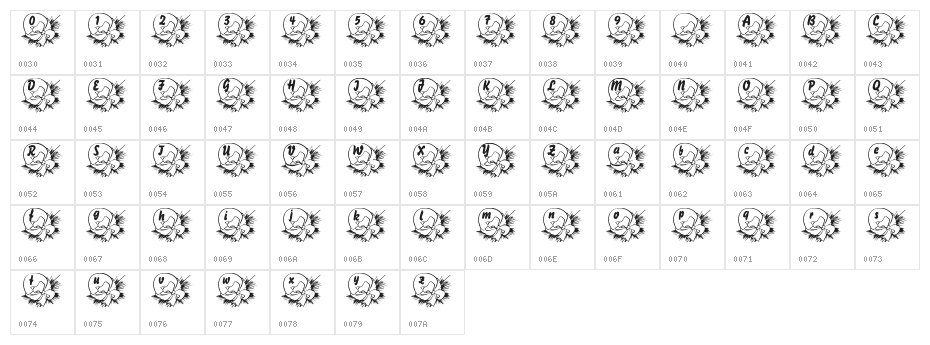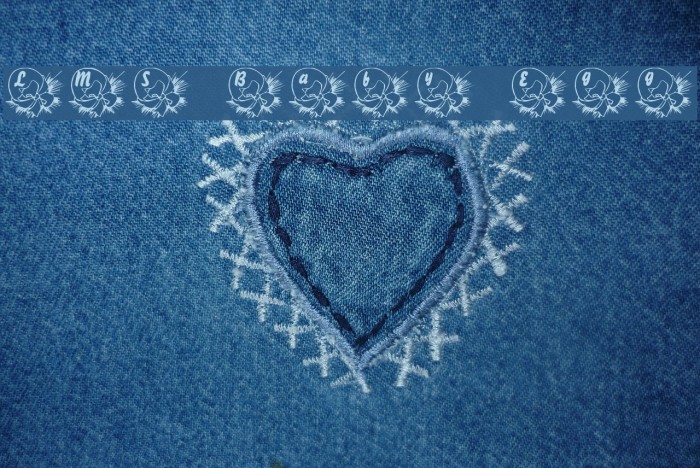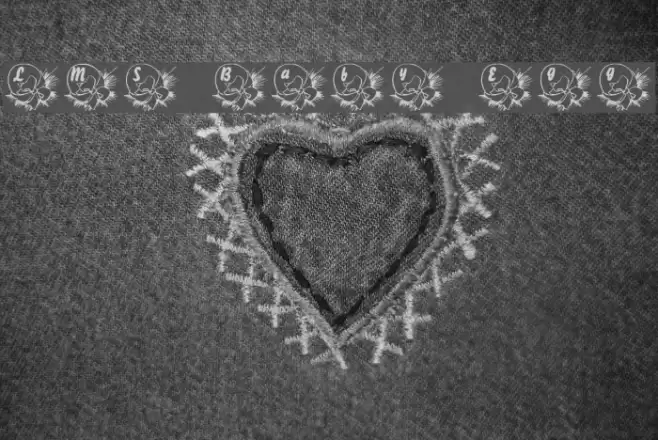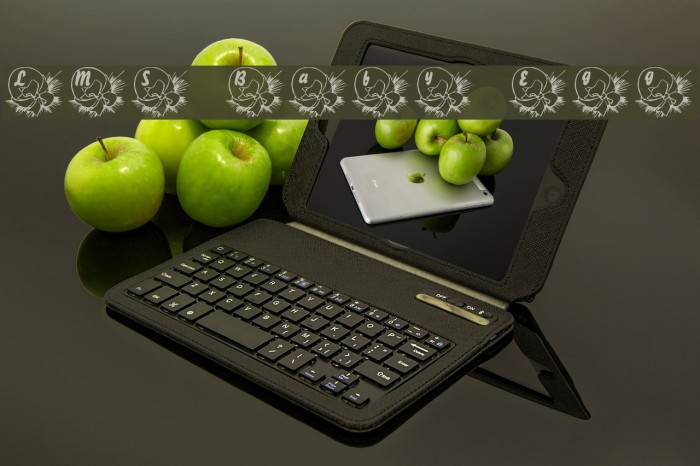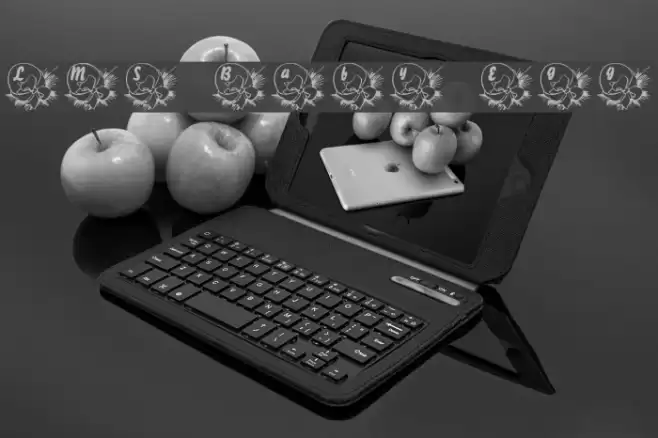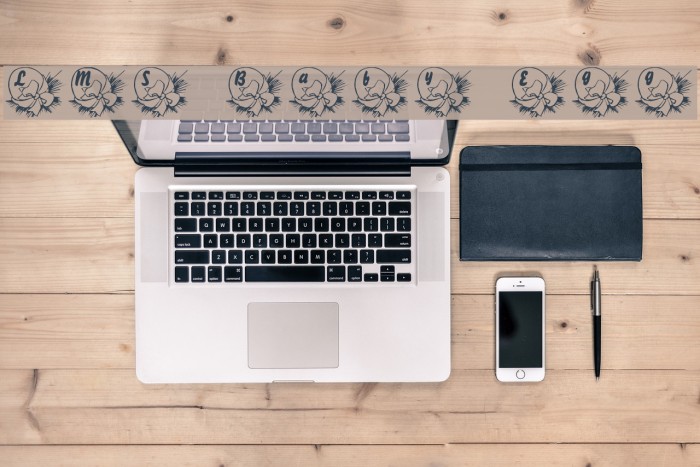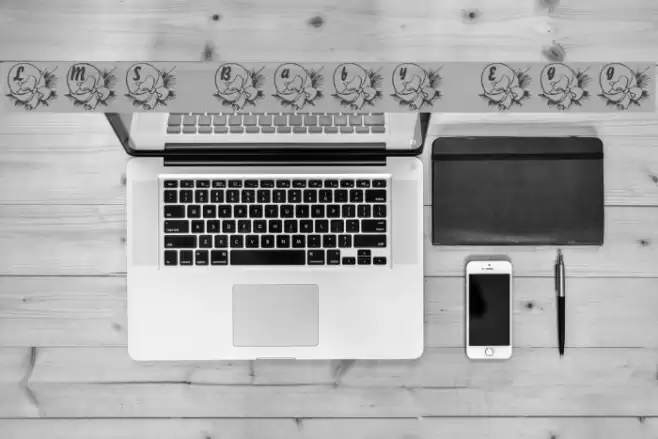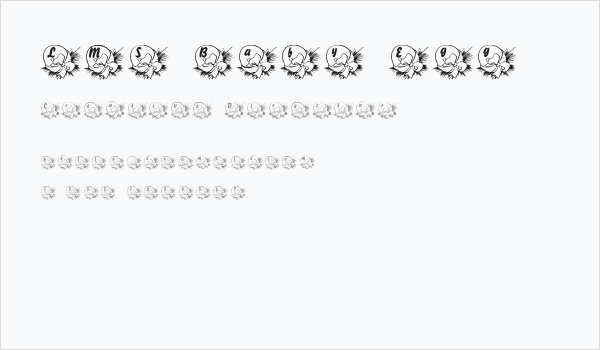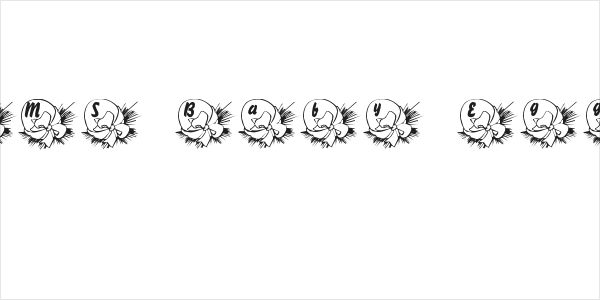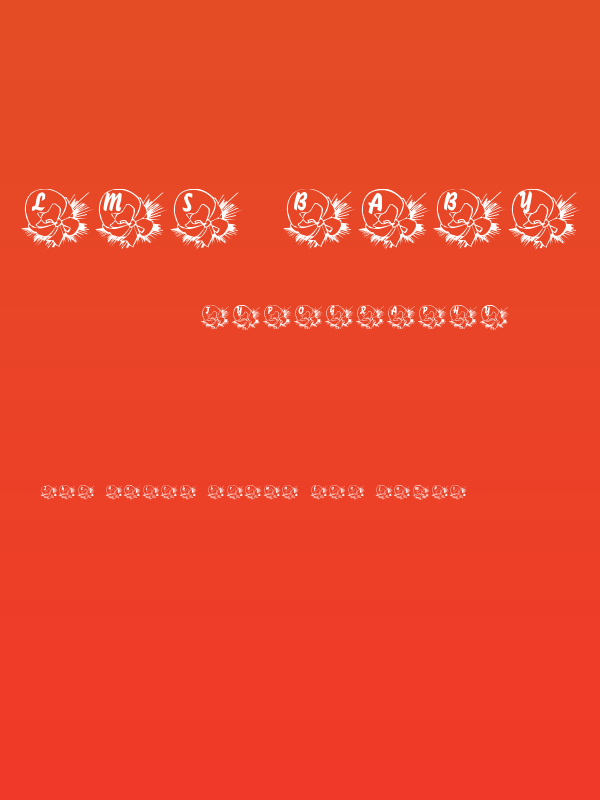
LMS Baby Egg Font
LMS Baby Egg Description
This playful and whimsical font features each character nestled within a cracked egg, giving it a unique and charming appearance. The letters are bold and rounded, with a hand-drawn style that adds to its playful nature. The cracked egg design surrounding each character adds an element of surprise and creativity, making it ideal for projects that require a fun and lighthearted touch. The font includes both uppercase and lowercase letters, numbers, and a selection of special characters, all maintaining the consistent egg theme. Its decorative style is perfect for children's projects, Easter-themed designs, or any creative endeavor that seeks to capture a sense of joy and imagination.
| Overall Style | Whimsical |
| Proposed Projects | Ideal for children's books, Easter cards, playful branding, and creative invitations. |